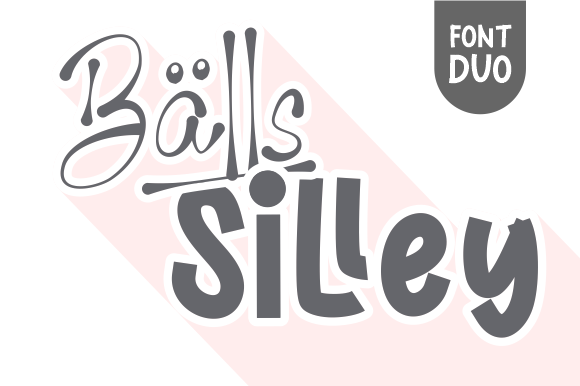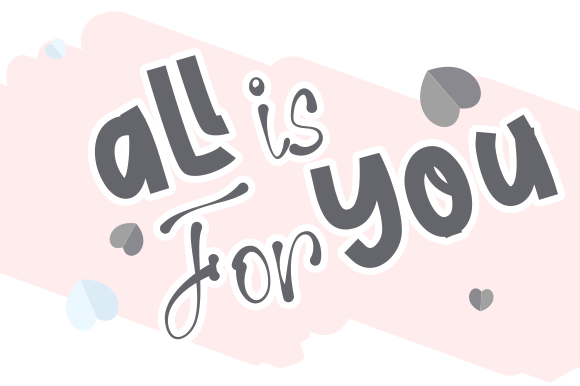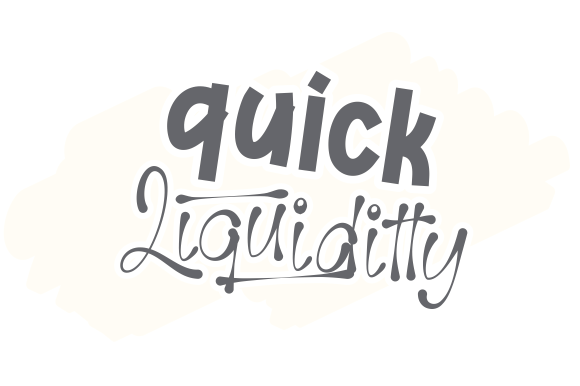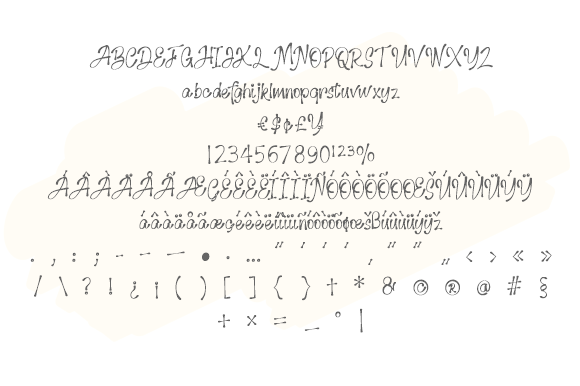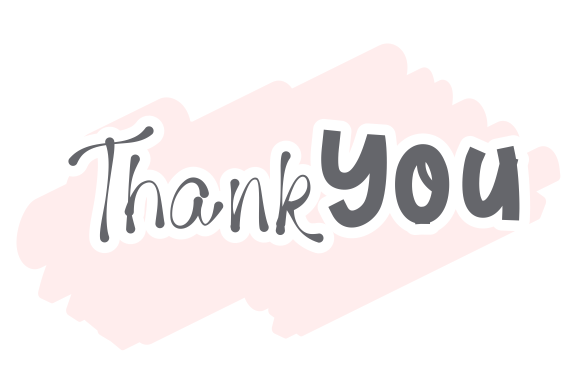
Discover the Joy of Typographic Movement
Have you ever stared at a blank page, waiting for inspiration to strike? Maybe you’re searching for that one elusive font that will elevate your design to the next level. We’ve all been there, and it’s a frustrating feeling. But what if I told you that the perfect font is out there, waiting to bring your creative vision to life?
Meet Balls Silley Font, a stunning duo font that’s sure to capture your attention. With its unique, dancing characters that move along the baseline, Balls Silley Font is an incredibly versatile tool for designers. Whether you’re working on a logo, brochure, or website, this font is sure to add a touch of sophistication and whimsy to your design.
For designers, Balls Silley Font is a valuable asset that can help take their work to new heights. Its playful, yet elegant style makes it perfect for a wide range of designs, from modern and trendy to classic and timeless. So why settle for a boring, run-of-the-mill font when you can have Balls Silley Font and make a real statement with your design?
Balls Silley Font Key Features
- Unique Characteristics: The font features playful, cursive script with rounded edges, making it suitable for informal and creative content.
- Style Variations: Available in regular and bold styles, with optional ligatures for added flair
Balls Silley Font Review
Overall, I found Balls Silley Font to be a quirky, eye-catching font that’s perfect for adding a touch of whimsy to your designs. ✨ Here are some of its strengths:
- Unique aesthetic: The font’s playful, handwritten feel makes it ideal for projects that require a personal, human touch.
- High legibility: Despite its unconventional design, the font remains easy to read, even at smaller font sizes.
- Great for titles and headings: The font’s bold, attention-grabbing nature makes it perfect for use as titles, headings, and other prominent text elements.
However, I did encounter some limitations when working with Balls Silley Font. ⚠️ Here are a few things to keep in mind:
- Not suitable for body text: While the font is great for titles and headings, it’s not ideal for use as body text, as it can be quite dense and overwhelming.
- Limited font sizes: The font may not scale well to very small or very large font sizes, which can affect its legibility.
Overall, I think Balls Silley Font is a great choice for designers who want to add some personality to their projects. Just be mindful of its limitations, and use it thoughtfully to avoid overwhelming your audience.
Balls Silley Font: A Practical Application Guide
Tips for Getting the Most Out of the Balls Silley Font
Use the Balls Silley Font to add a playful touch to your designs. Pair it with bold, bright colors to create a fun and eye-catching visual effect.
Experiment with different font sizes and styles to create a unique and personalized look.
The Balls Silley Font is perfect for creating playful and eye-catching designs, such as:
Children’s party invitations
Marketing materials for youth-focused products
Social media graphics
Comparison to Balls Silley Font: While Balls Silley Font has a playful and whimsical feel, Pacifico is more refined and sophisticated. Pacifico is a better choice when you want to convey elegance and sophistication, whereas Balls Silley Font is better suited for playful and creative projects.